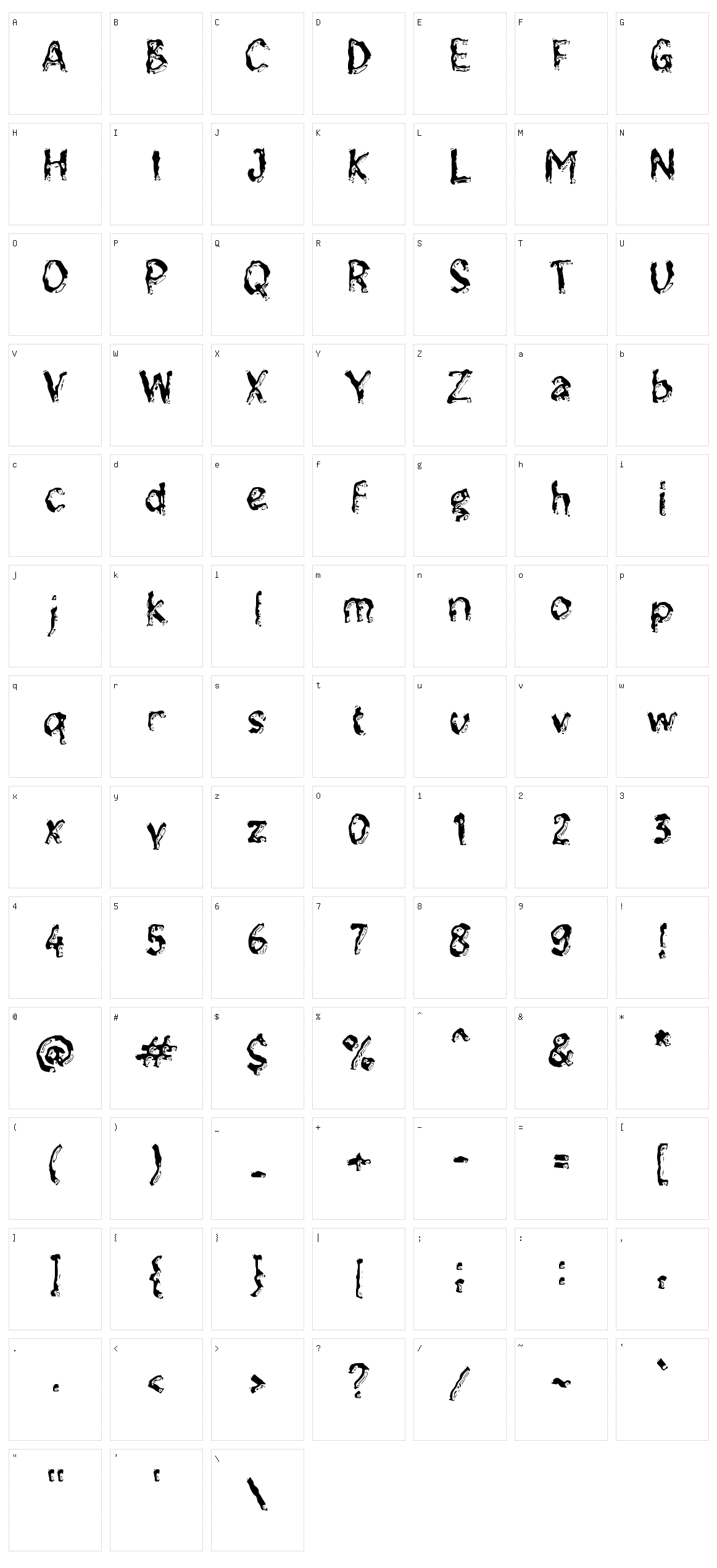
The free font h Hampa is carefully designed by wep, showcasing a thoughtful balance of creativity and usability and falls under the Halloween font style. When you download the ZIP file, it contains only 56.29 KB of font files, making it lightweight and quick to download. Please review the license details below to understand permitted usage and distribution rights. If license information is not available, we recommend using this font for personal projects only or contacting the author directly for commercial usage permissions.